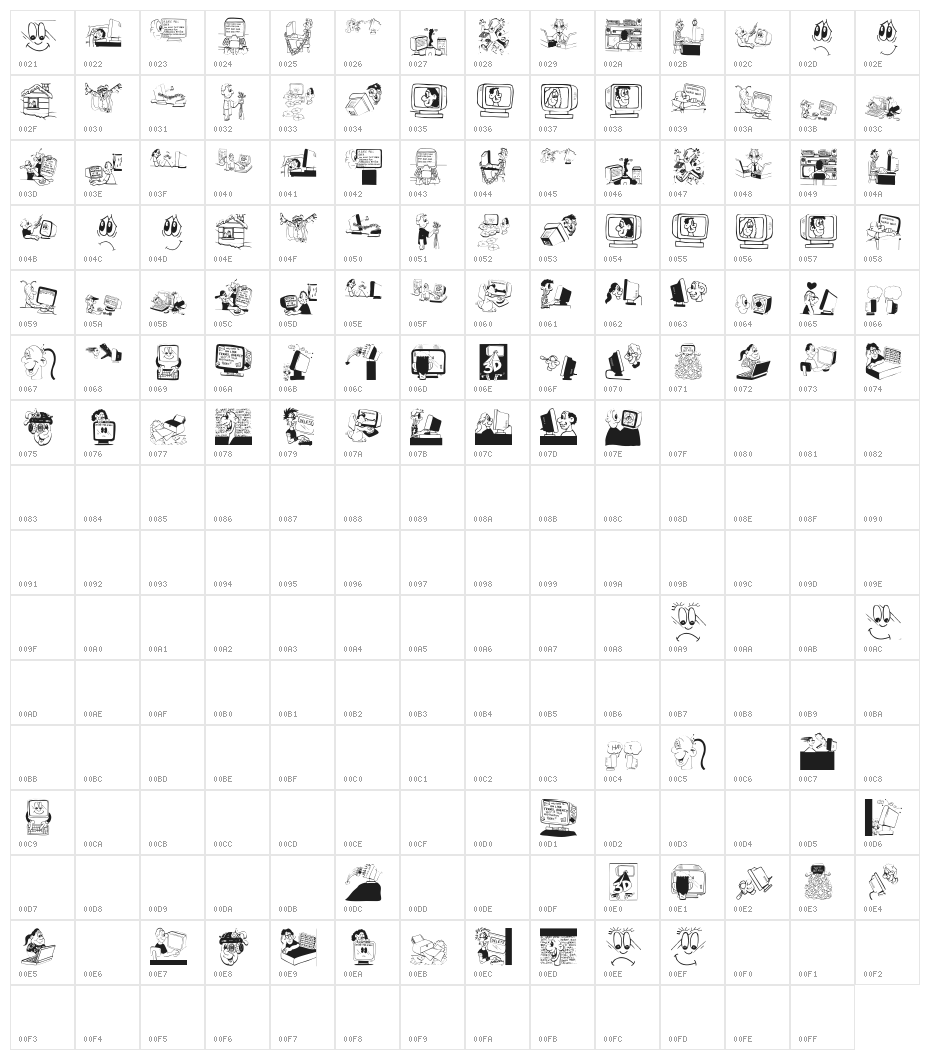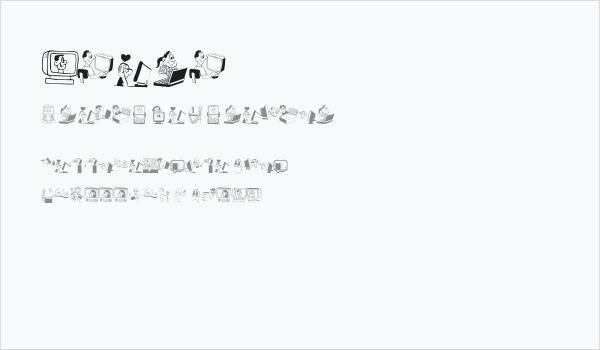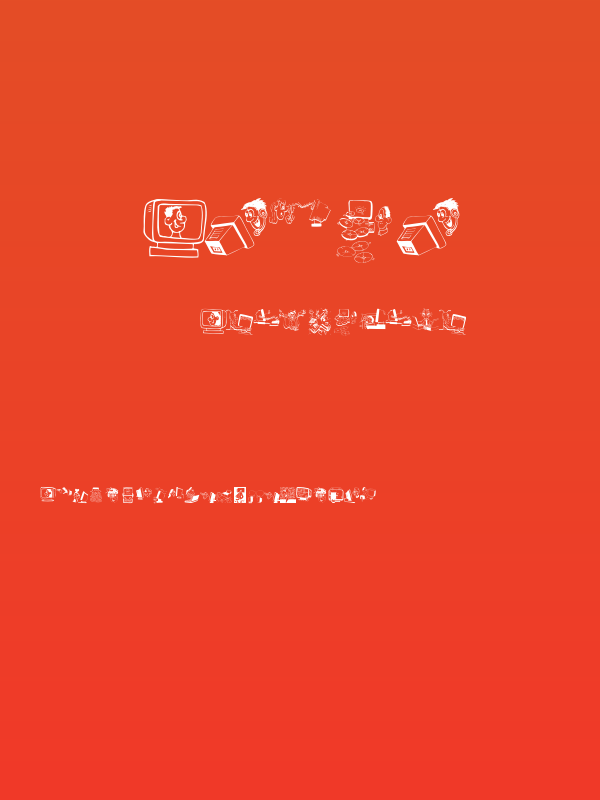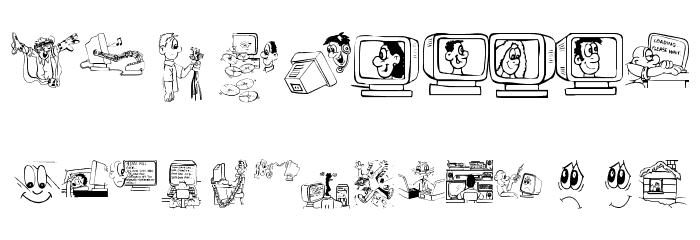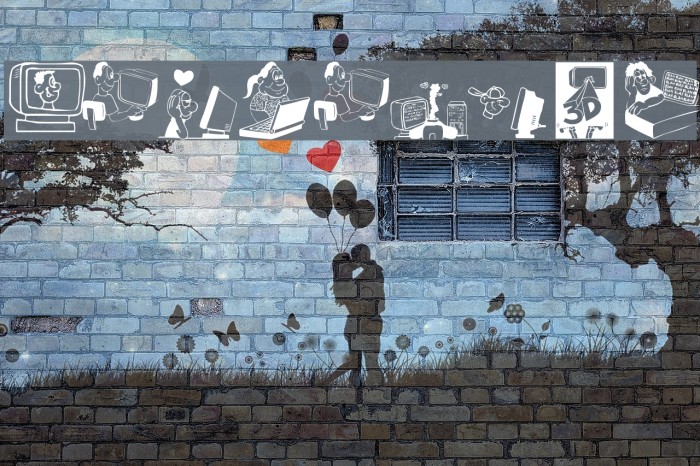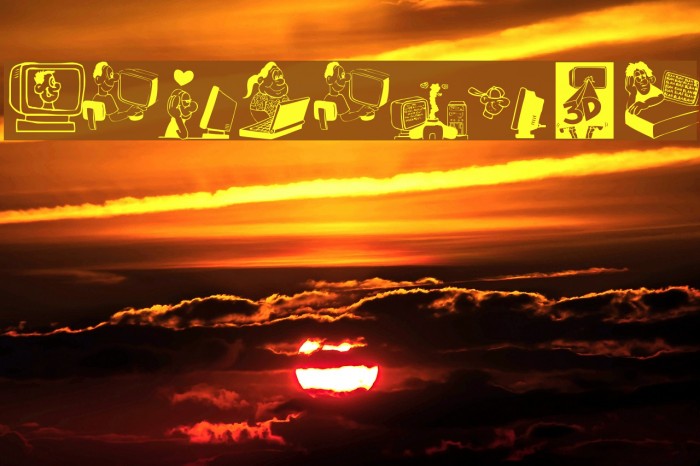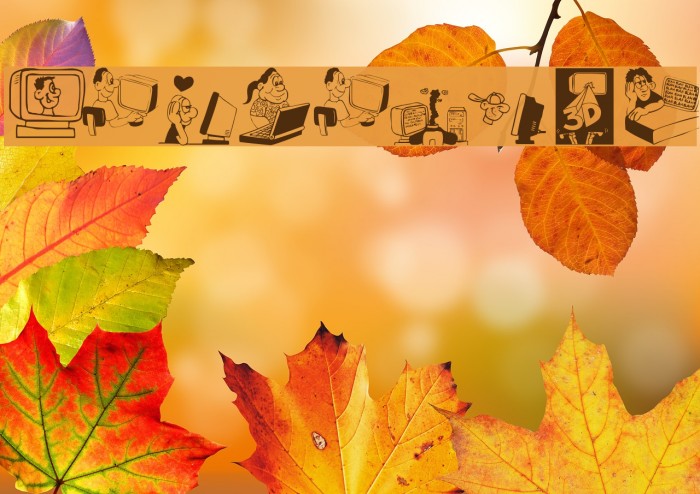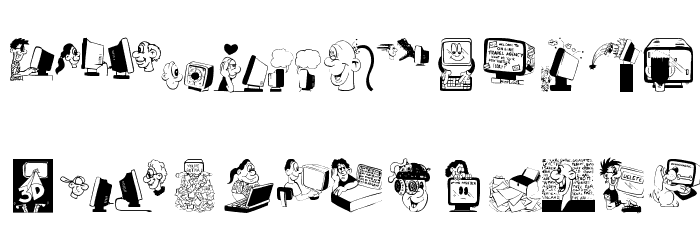
Users Font
Users Description
A playful, cartoonish dingbat font featuring hand-drawn illustrations of people interacting with computers, monitors, and technology in various humorous and expressive scenarios. The characters and objects are outlined with bold strokes and filled with minimal shading, giving a lively and whimsical appearance.
| Overall Style | Playful, Cartoon, Decorative |
| Use Case | Illustrative accents, icons, themed headings, educational graphics |
| Proposed Projects | Tech blogs, educational materials, comic strips, playful presentations, infographics, children's books. |